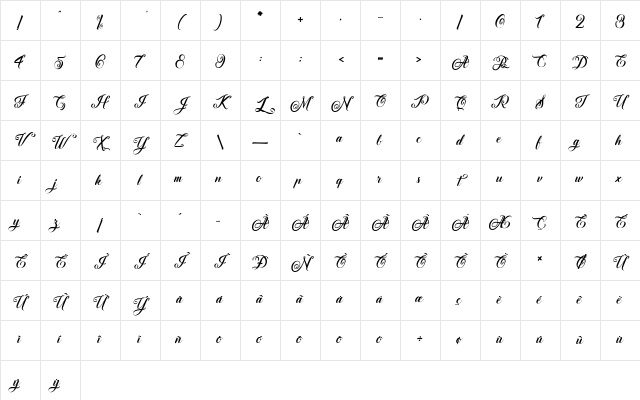
Complete Afterschool Festival Regular glyph index. Displaying only characters natively supported by Afterschool Festival Regular font.
Afterschool Festival is a composed and adaptable typeface that performs quietly and consistently across a wide range of design contexts.